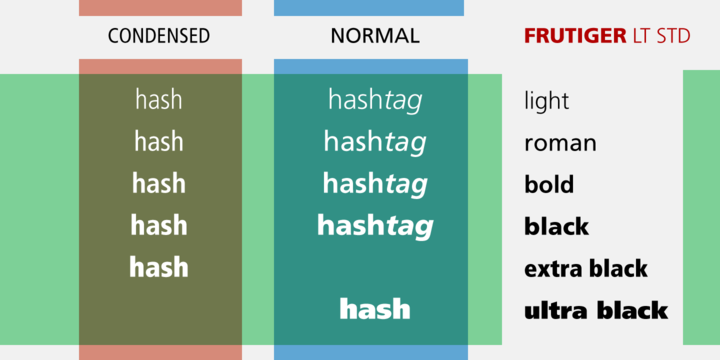
Frutiger
Frutiger was created by Adrian Frutigerin the year 1968, this amazing font was originally custom-built to extend a signage system ideally suited to the structural design of the new Charles de Gaulle Airport situated outside Paris. The font is simple, clean, and dynamic sans serif type. It is also known for being highly legible. Frutiger is … Read more